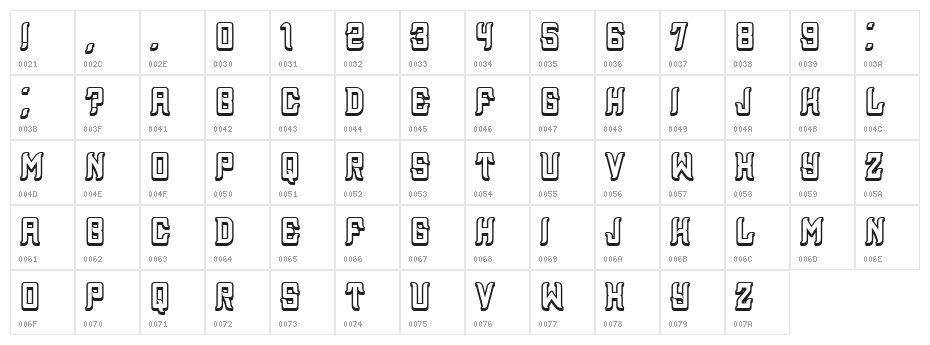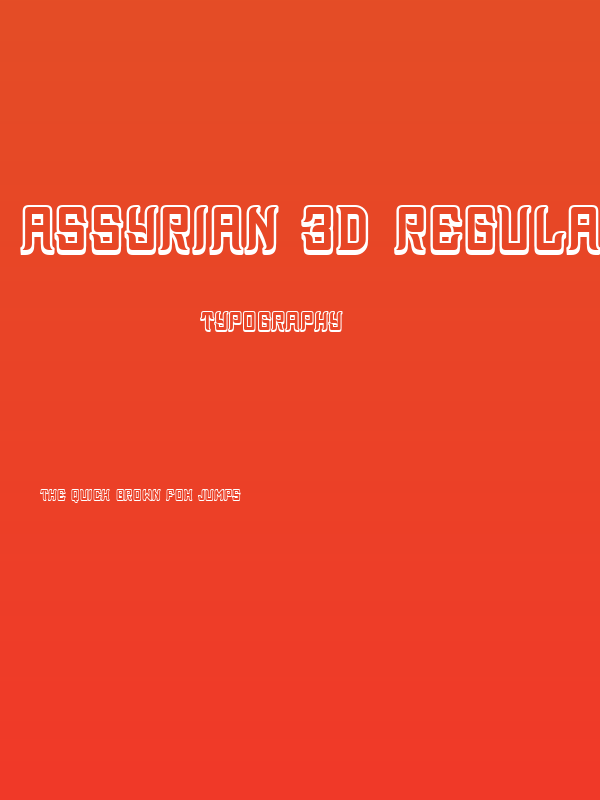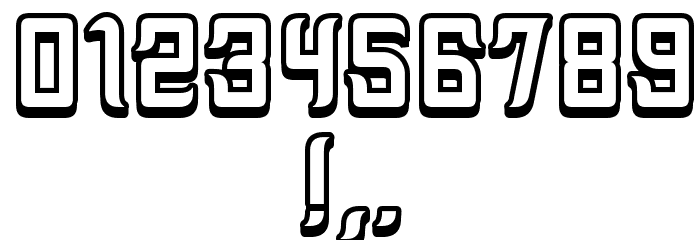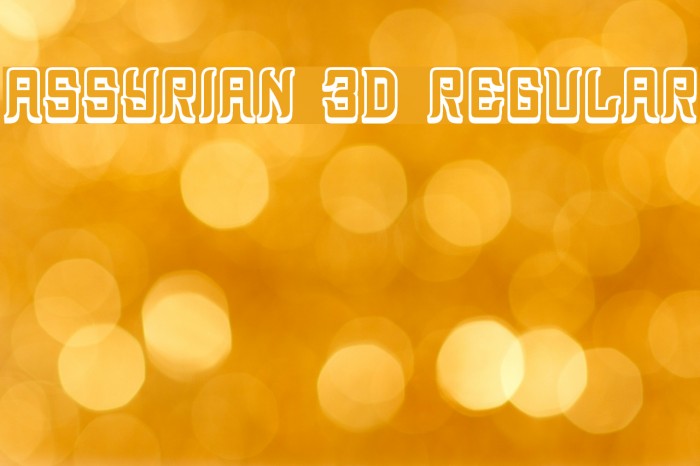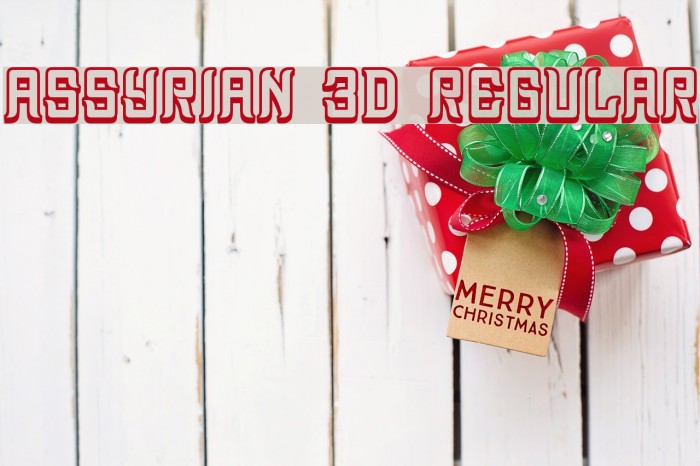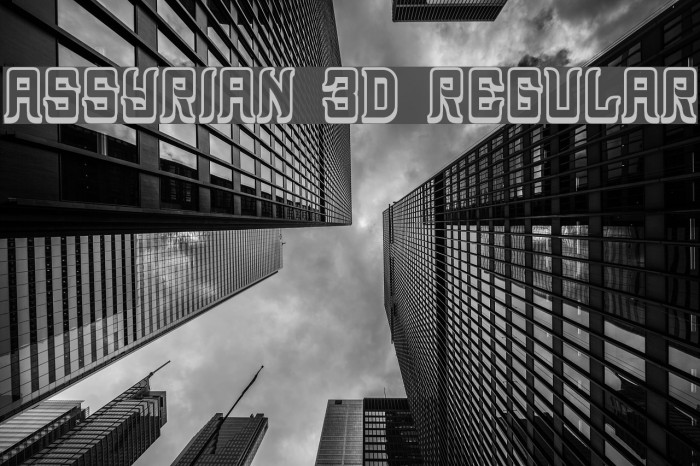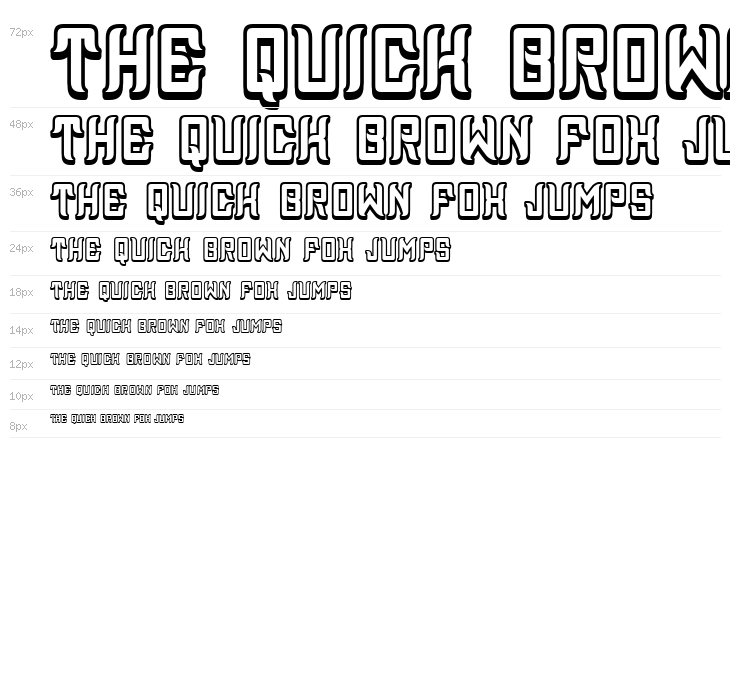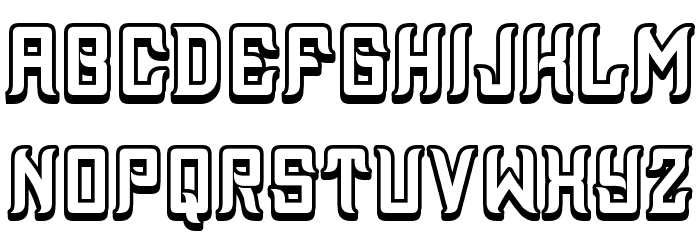
Assyrian 3D Regular Font
Assyrian 3D Regular Description
This font features a bold, three-dimensional appearance with a strong outline that gives each character a distinct, impactful look. The uppercase letters are designed with a blocky, geometric style, while the lowercase letters maintain a similar aesthetic, ensuring consistency across the typeface. The numbers and special characters follow the same design principles, making them easily recognizable and visually appealing. The font's 3D effect is achieved through a clever use of shading and perspective, which adds depth and dimension to the text. This style is ideal for creating eye-catching headlines or logos that require a modern and dynamic feel.
| Proposed Projects | Ideal for use in branding, poster design, video game graphics, and any project requiring a modern, impactful look. |